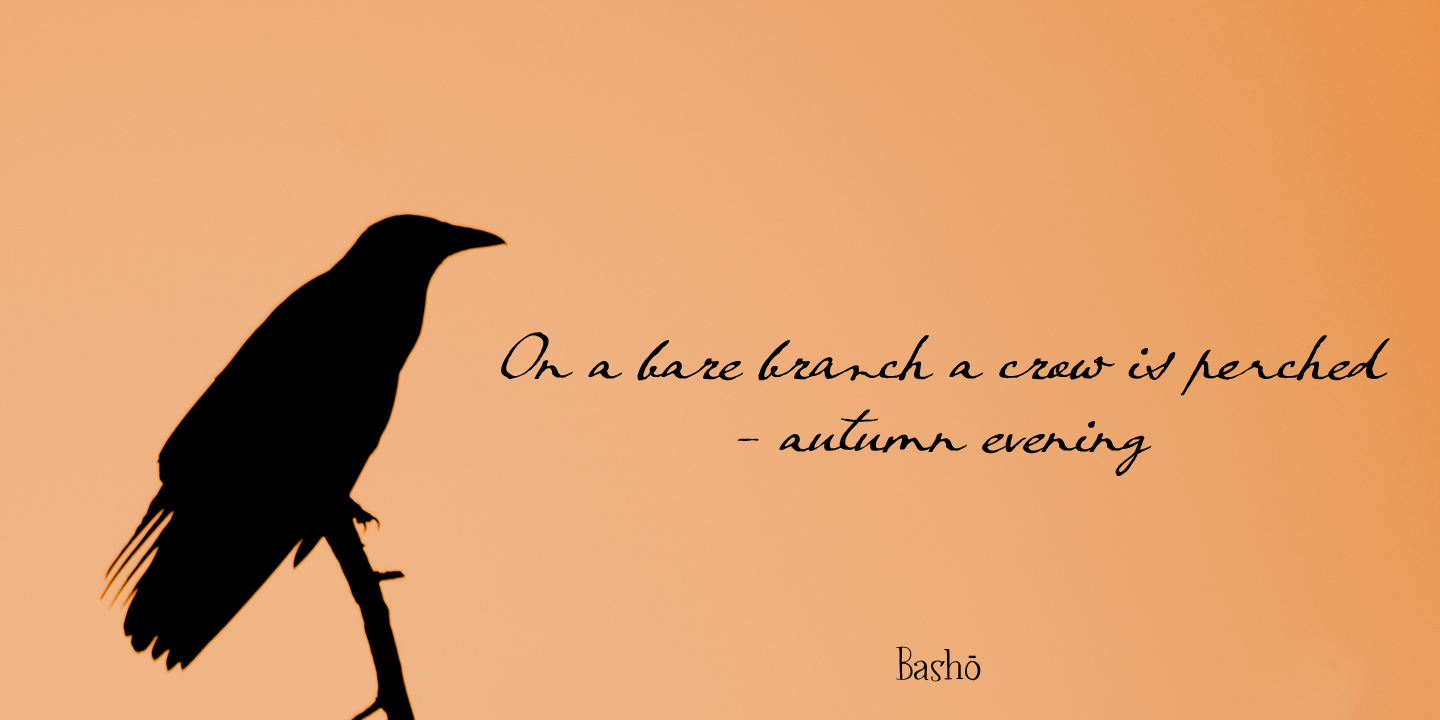
Crowfeather Font is perfect for dark fantasy book covers, mystical gothic branding, haunting movie posters, mysterious occult designs, shadowy metal band logos, enigmatic tarot card layouts, supernatural game interfaces, and atmospheric dark art projects.
What makes Crowfeather Font exciting is its mysterious darkness and haunting elegance that captures the enigmatic beauty of ravens soaring through moonlit skies and ancient mysteries. This captivating typeface combines gothic sophistication with mystical allure, creating letters that whisper secrets of the shadows and radiate supernatural magnetism. The font's feather-inspired character details and dark aesthetic make it an essential tool for brands seeking to communicate mystery, elegance, and otherworldly sophistication.
Crowfeather Font family includes Regular, Bold, Light, Gothic, Shadow, and Mystical variations, plus dark ornaments and supernatural elements. Each style maintains the font's mysterious character while providing comprehensive flexibility for creating atmospheric dark design systems and mystical brand communications that embrace gothic elegance and supernatural appeal.
Gothic design specialists consistently choose Crowfeather Font Free Download for projects requiring dark sophistication and mystical visual impact. This remarkable typeface has gained recognition among fantasy publishers, gothic brands, and supernatural entertainment organizations worldwide. The font's ability to convey mystery and dark elegance makes it perfect for brands operating in fantasy, gothic lifestyle, and supernatural entertainment markets.
The design philosophy behind Crowfeather Font emphasizes dark elegance and mystical authenticity. Its letterforms feature haunting construction with carefully crafted details that reflect the mysterious beauty and supernatural grace found in gothic literature and dark fantasy storytelling. The font's distinctive elements include feathery flourishes and mystical character variations that create immediate emotional connection with audiences seeking dark beauty and supernatural experiences.
Creative agencies specializing in gothic and fantasy branding frequently select Crowfeather Font for clients requiring atmospheric communication and dark brand expression. The font's versatility allows seamless integration into comprehensive gothic branding systems, from fantasy campaigns to supernatural product launches, ensuring consistent brand personality across all dark and mystical touchpoints.
The technical execution of Crowfeather Font demonstrates advanced understanding of gothic typography requirements and supernatural design standards. Optimized for both digital fantasy applications and atmospheric print materials, the font includes extensive OpenType features that support dark design workflows. The comprehensive character set and mystical symbol library make it suitable for international fantasy campaigns requiring authentic gothic typography with global supernatural appeal.